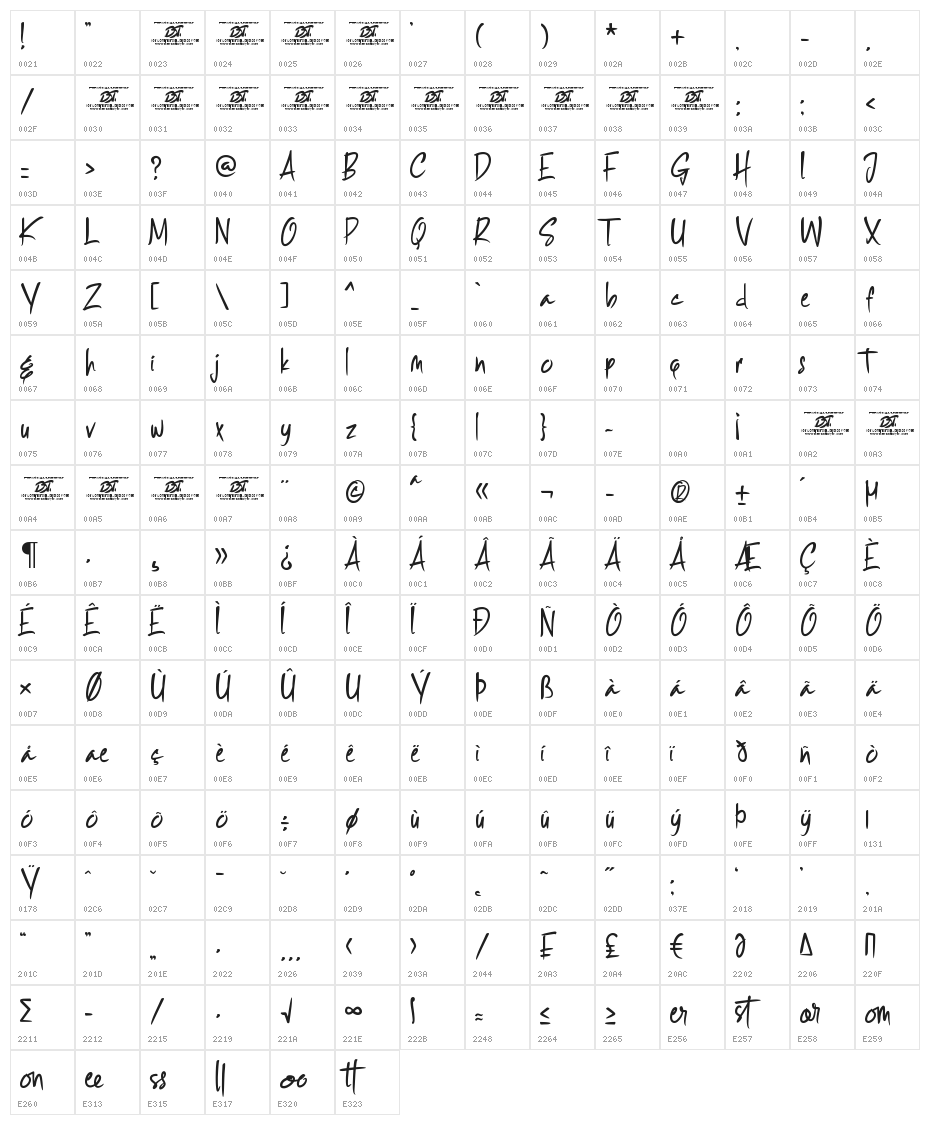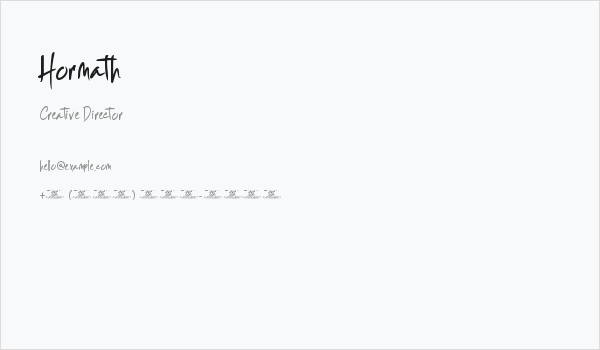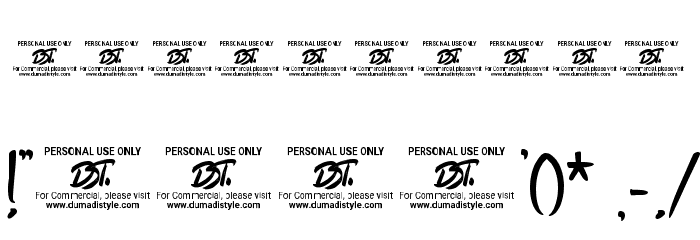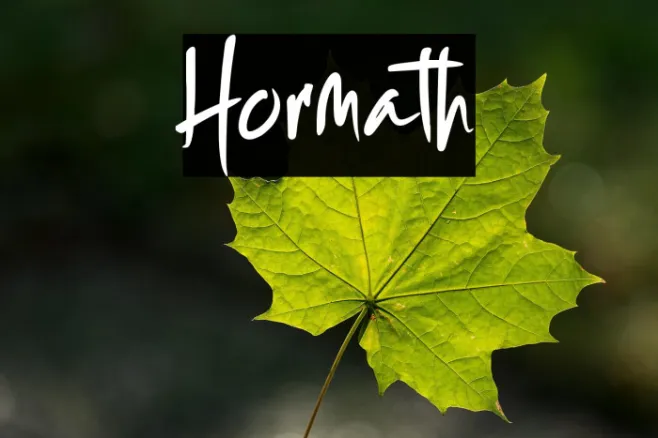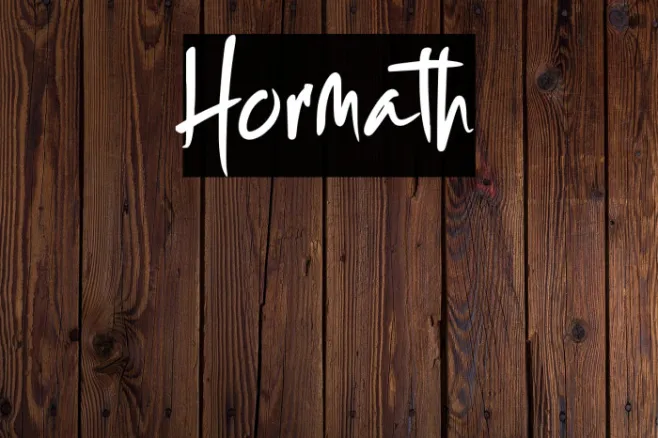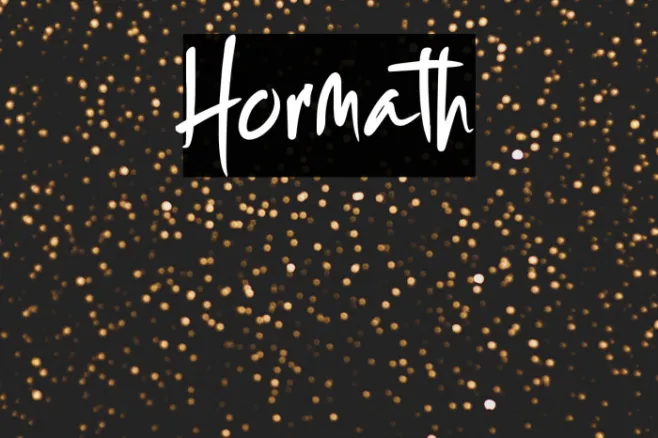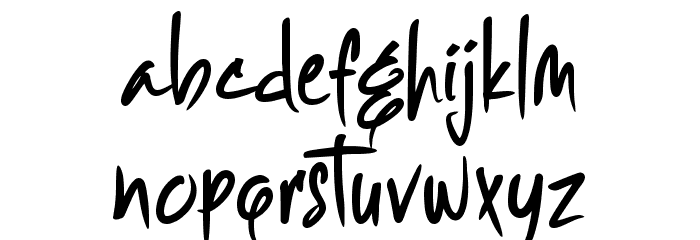
Hormath Font
Hormath Description
This font features a dynamic and expressive handwritten style, characterized by its fluid and energetic strokes. The uppercase letters are bold and slightly slanted, giving a sense of movement and spontaneity. The lowercase letters maintain a consistent style, with some characters featuring unique flourishes that add to the overall artistic feel. The numbers and special characters are crafted with the same attention to detail, ensuring a cohesive look across all glyphs. This font's playful yet sophisticated appearance makes it suitable for a variety of creative projects.
| Proposed Projects | Ideal for branding, invitations, posters, and social media graphics. |